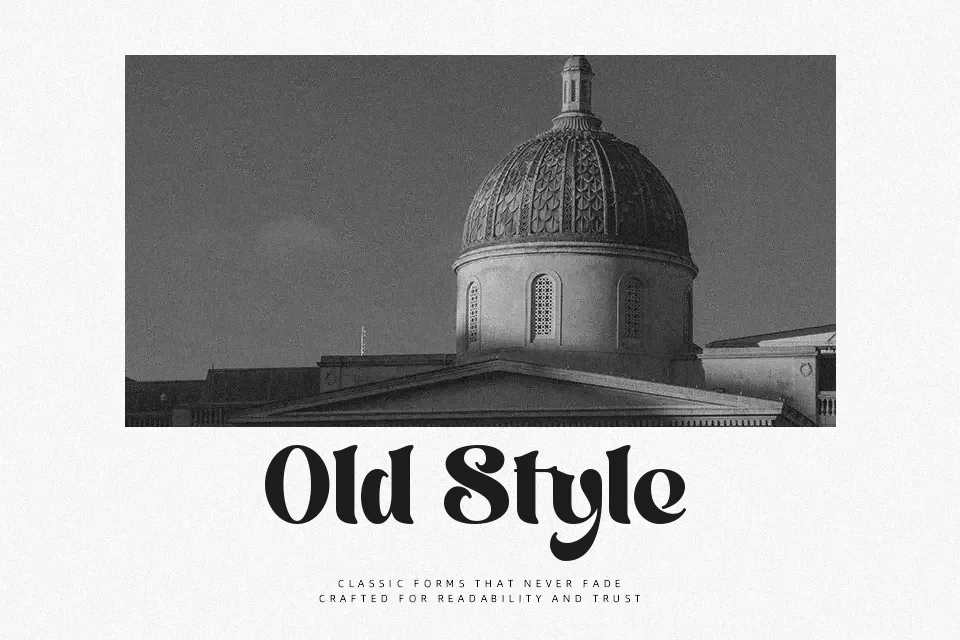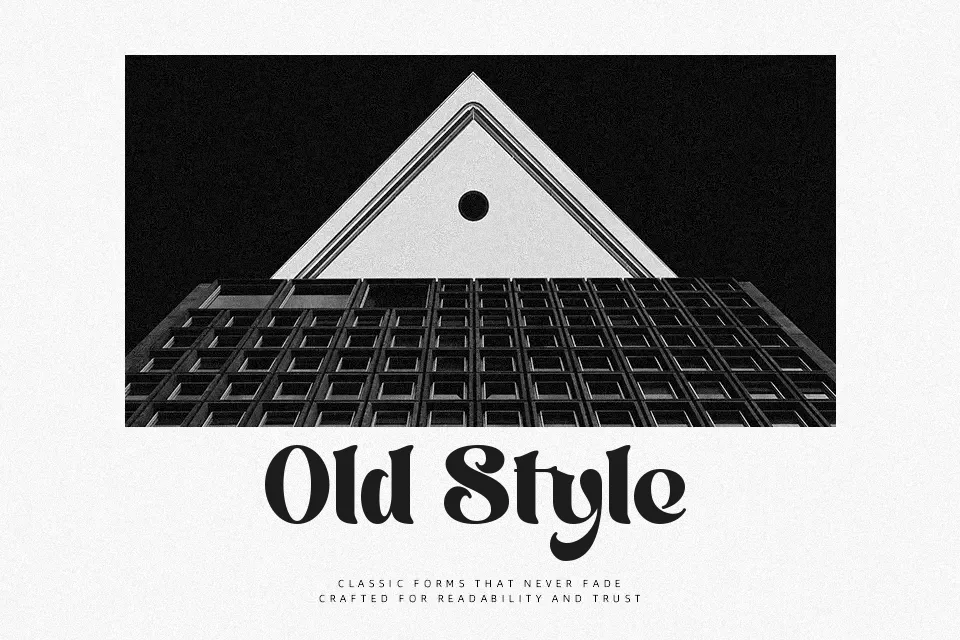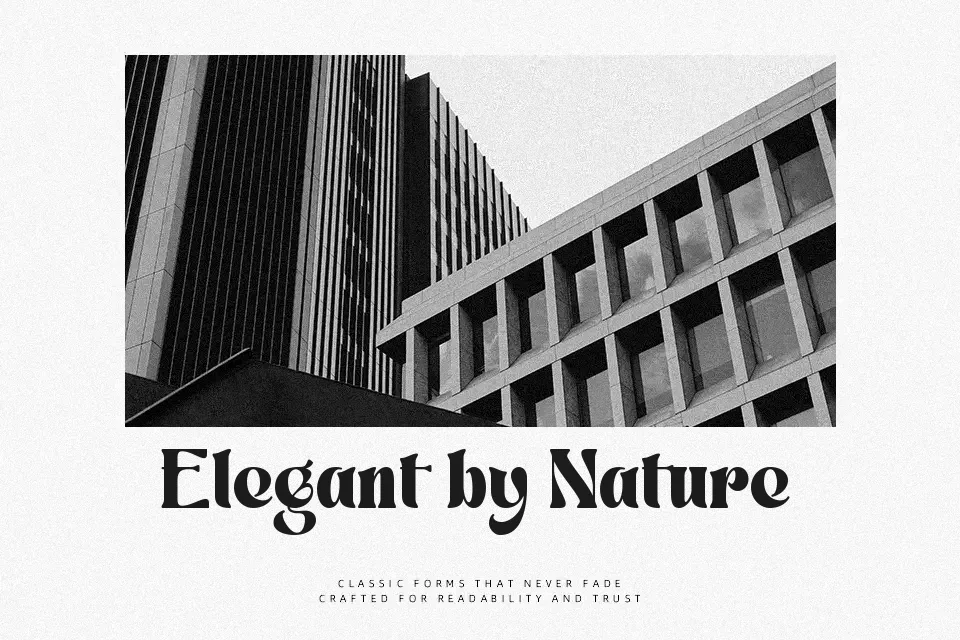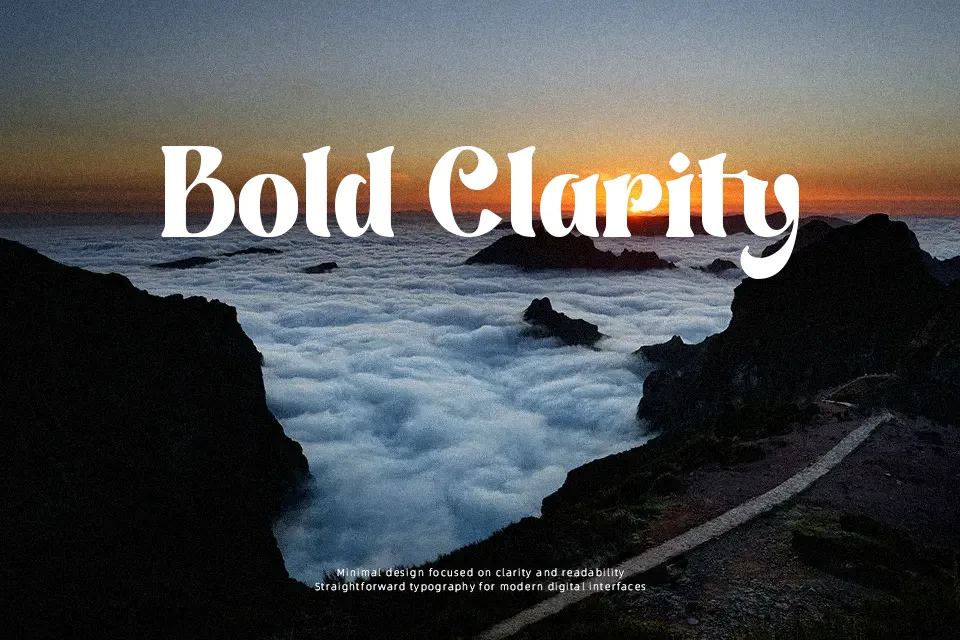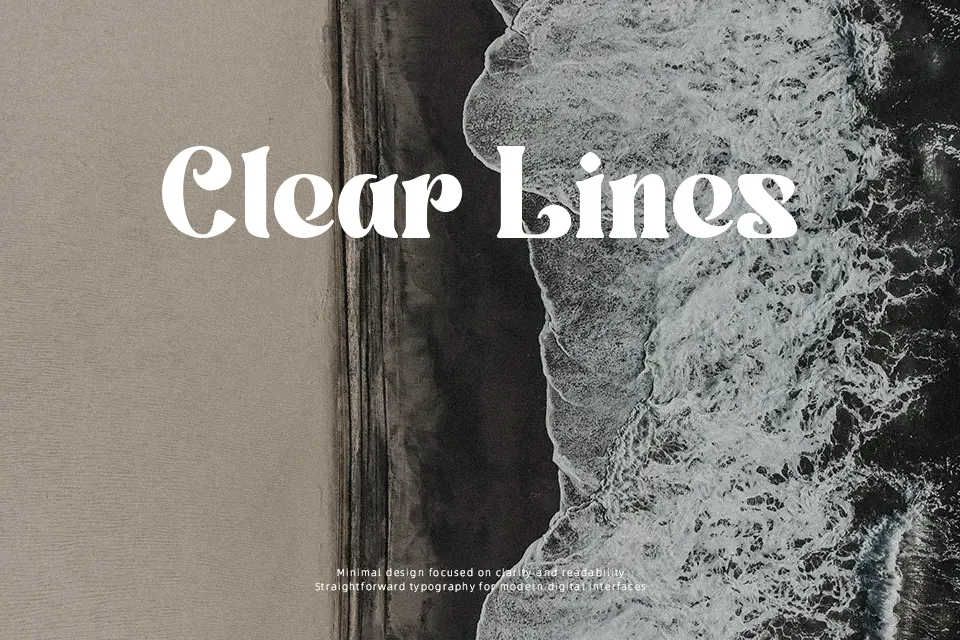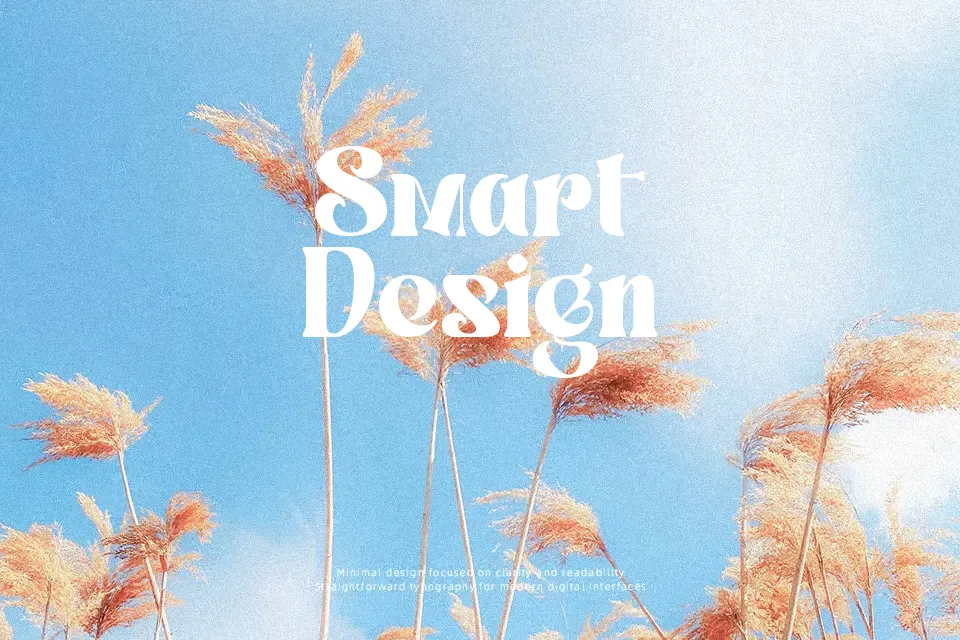
Rock Attack Font
Designed by Letterara
Rock Attack Font features a robust serif structure defined by thick, confident strokes and tightly balanced spacing. The aggressive vertical proportions create a commanding visual rhythm across both uppercase and lowercase letterforms. Solid stems and sharp terminal details help the typeface maintain excellent clarity in medium to large display applications. The tight spacing helps preserve legibility in massive headlines, giving it a strong presence for vintage product packaging or high-energy gaming graphics. However, the heavy stroke weight and decorative contrast become less effective at smaller sizes, making it less suitable for long paragraphs where reading comfort drops significantly.
Best For: vintage product packaging, music festival posters, esports team logos
Not Ideal For: long paragraph text, dense editorial layouts, small interface labels
Perfect for branding, headline, and packaging, with a bold and decorative style.